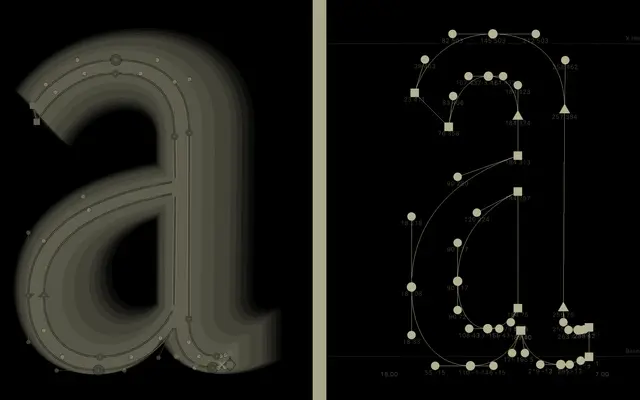
Nuacht Sans Condensed + X Condensed
A2-Type · 2018
The condensed and extra-condensed members of the Nuacht family, designed for the Irish Independent's 2018 redesign and intended for sports pages and information graphics.
Part of a bespoke newspaper type system commissioned for the Irish Independent's 2018 redesign, these two width variants cover seven weights from Thin to Black and were built to handle the tight column measures of sports reporting and data-heavy graphics. The Condensed and X Condensed cuts share the humanist character of the broader Nuacht Sans while tolerating the compression needed for tabular and high-density editorial layouts. Variable font versions are available on request.
Described by A2-Type as a humanist sans with an industrial character, the condensed and extra-condensed cuts were designed specifically for space-constrained newspaper contexts such as sports sections and information graphics.